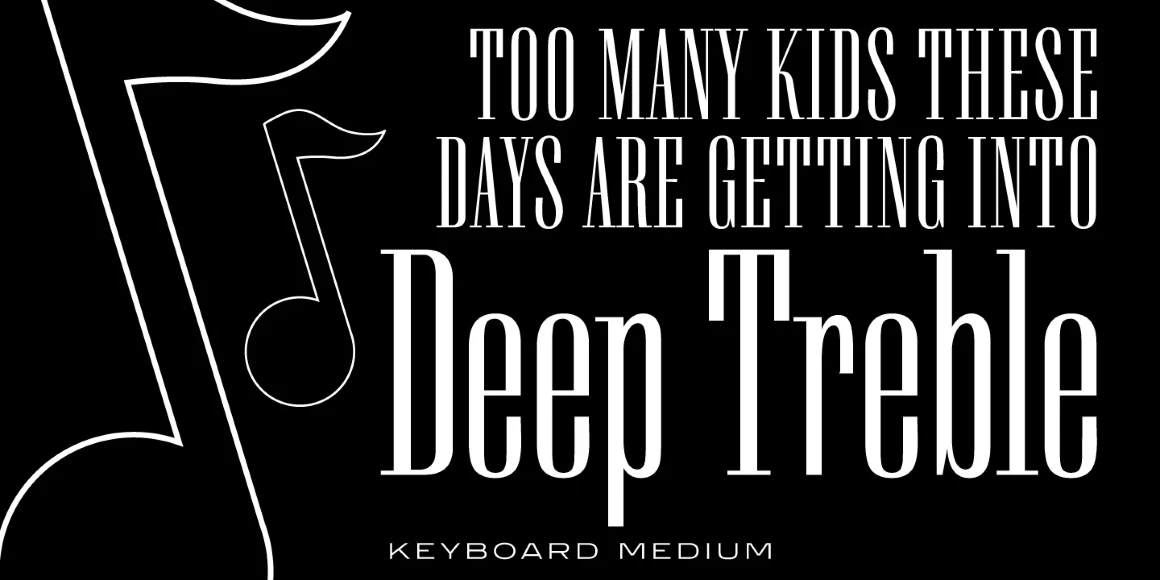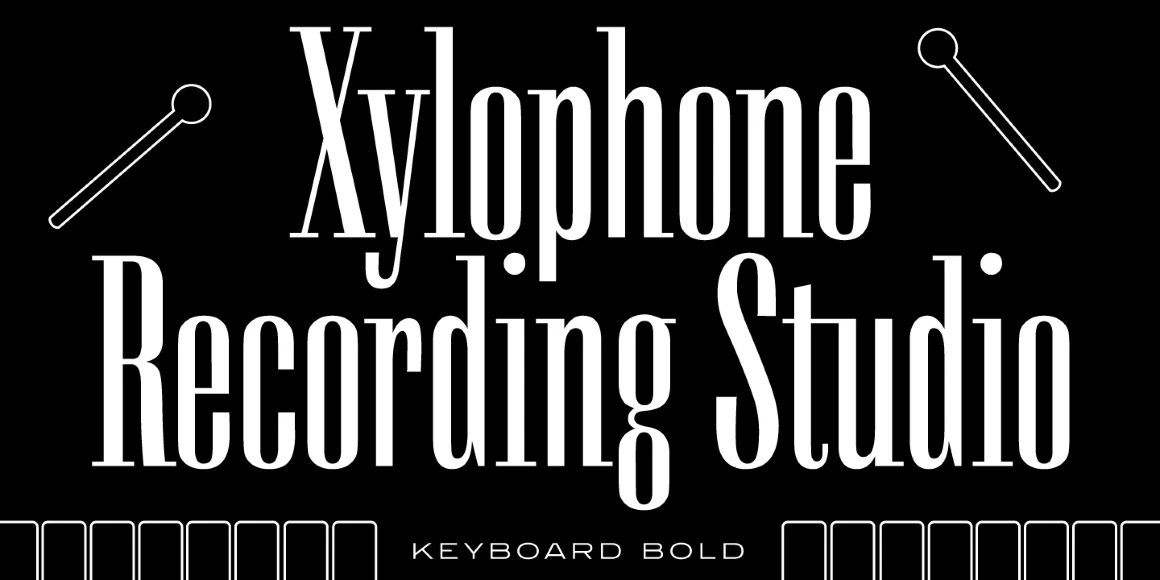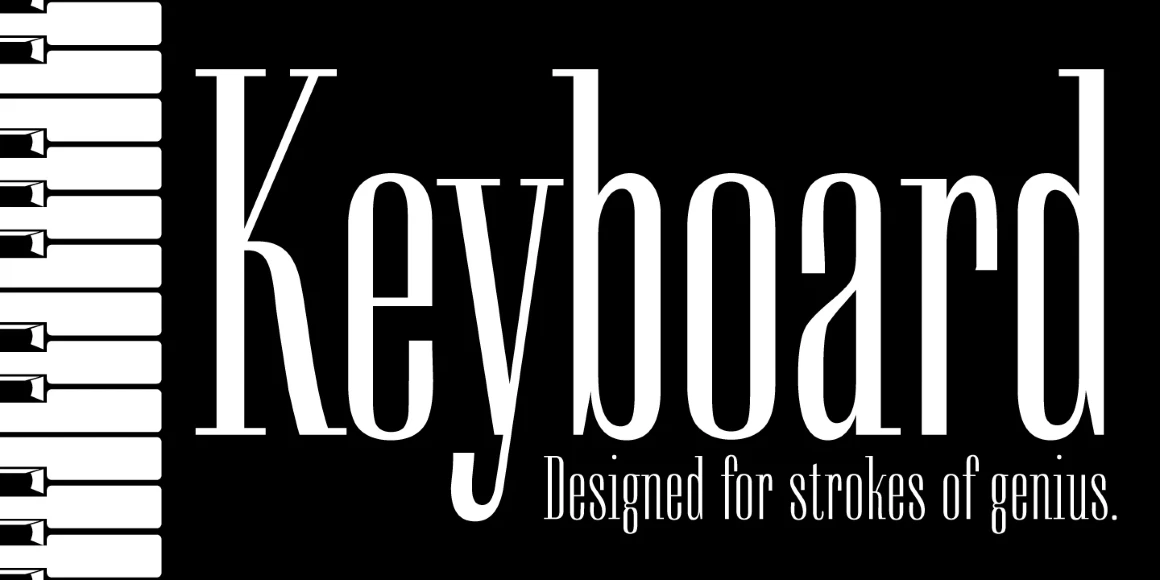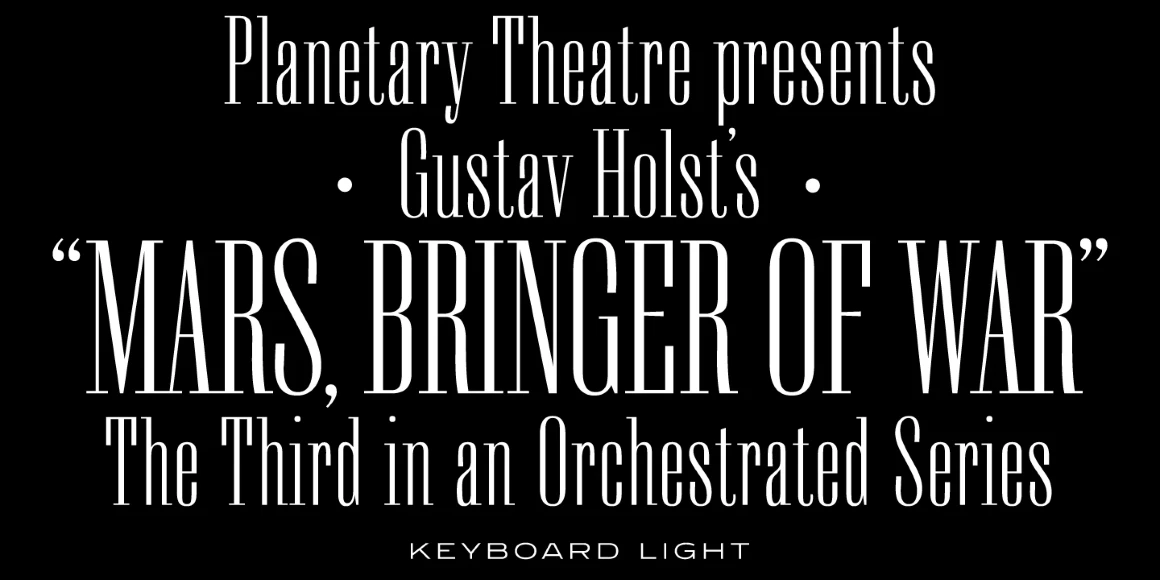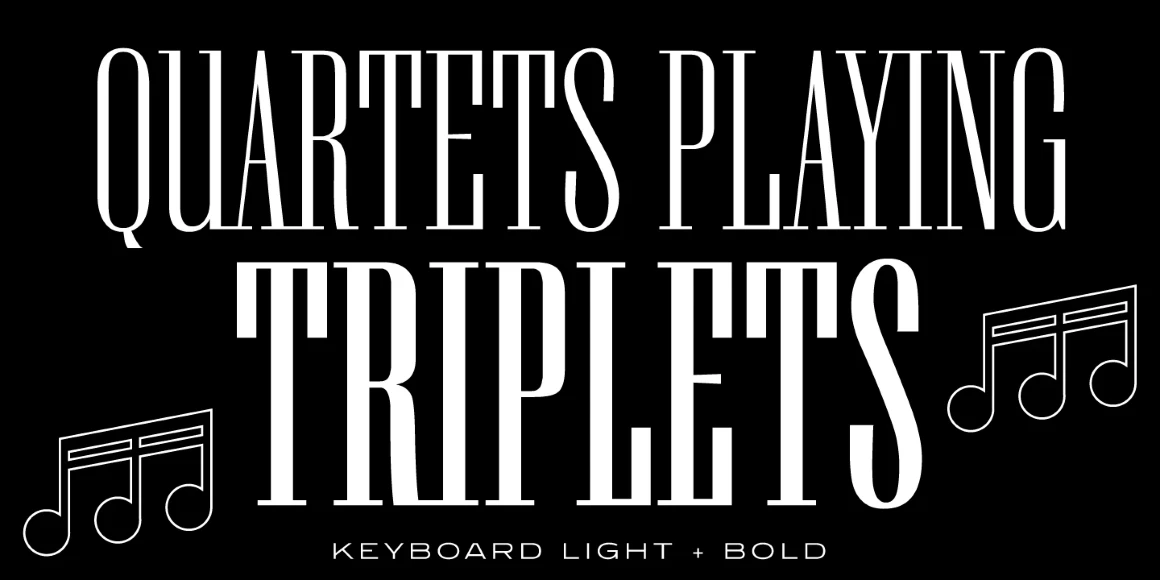
Keyboard
Keyboard Light
Keyboard Medium
Keyboard Bold
Keyboard is a condensed and elongated Egyptian font family with fine legs and a large x-height, and was exclusively licensed from the Stephenson Blake Collection. Keyboard’s digital letterforms were manufactured by Paul Hickson (P&P Hickson) exclusively for the Red Rooster Collection, and its full commercial version was produced by Steve Jackaman (ITF) in 1994. Keyboard excels in display and subhead sizes, and brings a formal feel to any project. Its condensed nature gives it great visual density in the bolder weights, and the lighter weights allow it to retain legibility at both small and massive sizes.